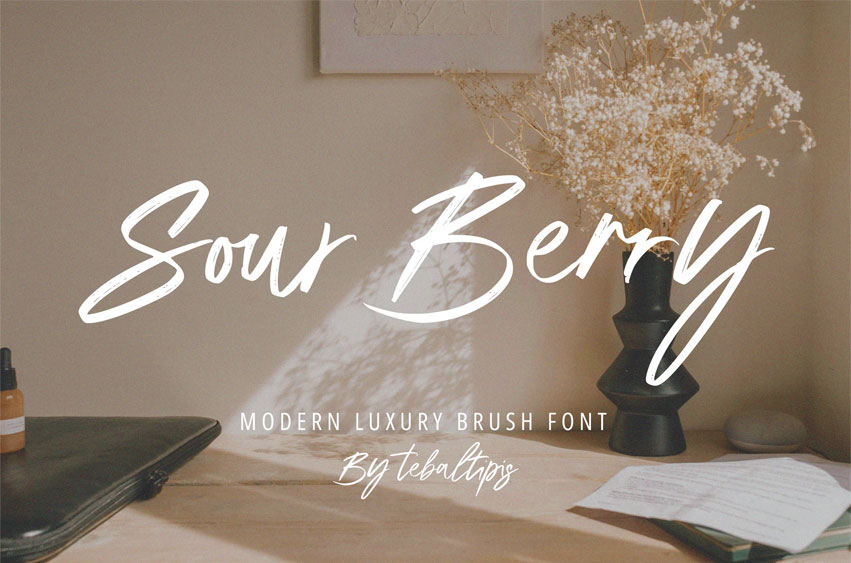
Sour Berry Font
Sour Berry Font with a handmade Signature style, decorative characters, and a dancing baseline! Sour Berry with 130+ glyphs. The alternative characters were divided into several Open Type features such as Swash, Stylistic Sets, Stylistic Alternates, and Ligature.
Sour Berry Features :
Uppercase & Lowercase International Language & Symbols Support Punctuation & Number PUA Unicode Range Standard Ligatures Discretionary Ligatures Stylistic Alternates Stylistic Set.